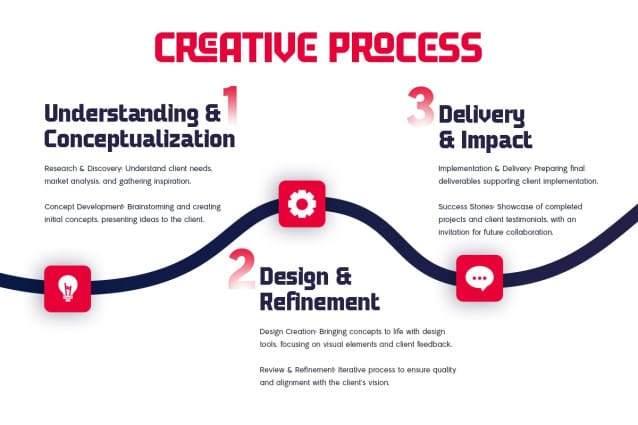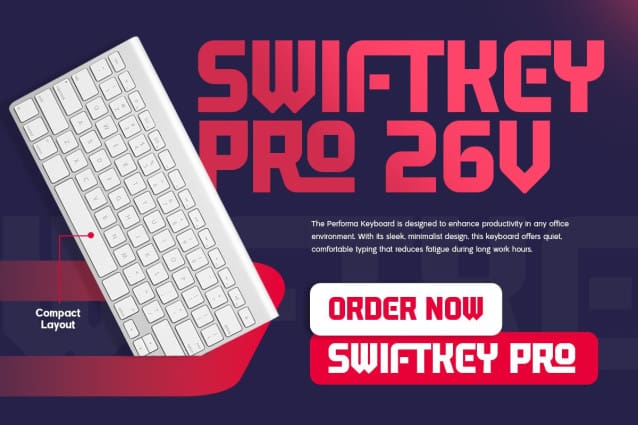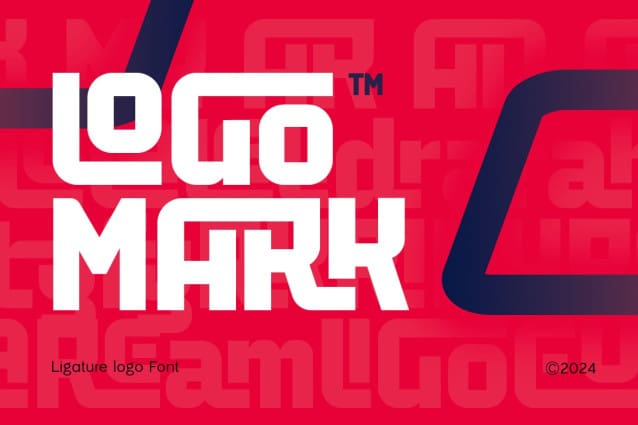
Logomark Font
Logomark Font is a sophisticated ligature logo font designed for designers and brands who want to leave a lasting impression. With its fluid letter connections and contemporary style, this font is perfect for creating standout logos, branding materials, and stylish identities. Its clean, sleek lines make it versatile for any business, from high-end fashion to tech startups.
Inspired by modern minimalism, Logomark combines elegance and creativity, ensuring your designs capture attention without overwhelming the viewer. Each ligature is seamlessly fluid, enhancing the visual harmony of your Logo while giving it a unique touch that sets it apart.
Whether creating a new brand or refreshing an existing one, Logomark Font is the perfect choice for those looking for a modern, refined look with a touch of originality.